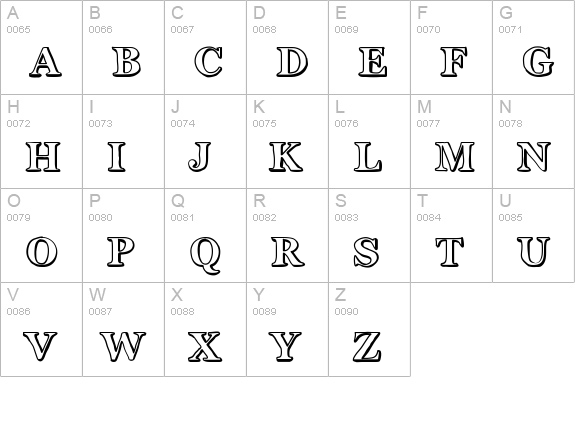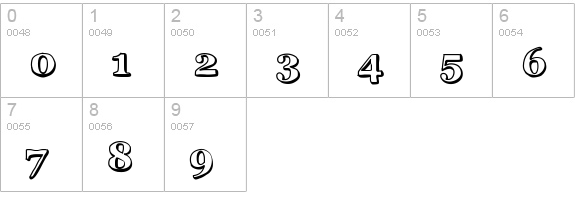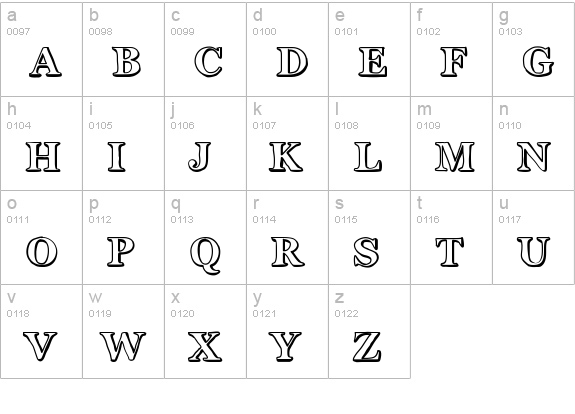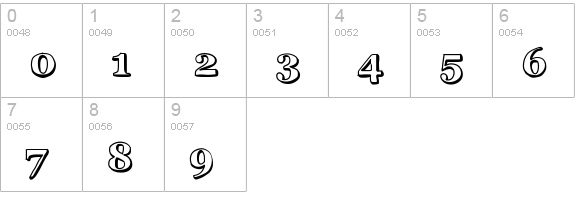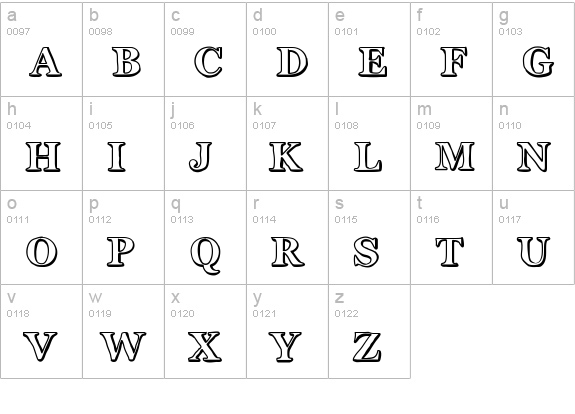
Introducing the Okay font - a captivating typeface that effortlessly combines modern elegance with a touch of playfulness. This versatile font is perfect for any project, whether it be designing eye-catching logos, creating stunning invitations, or crafting beautiful headlines. With its clean lines and sleek curves, Okay font brings a sense of sophistication to any design. Its well-balanced letterforms ensure legibility, making it an ideal choice for both print and digital mediums. Whether used in large headlines or small body text, Okay font maintains its clarity and readability. But what sets Okay font apart is its unique ability to evoke a sense of warmth and friendliness. Its subtly rounded edges and gentle curves give it a welcoming and approachable feel, making it the perfect choice for projects that require a personal touch. And the best part? Okay font is absolutely free to download at FontsMarket.com. This means that you can easily add this stunning typeface to your font collection without any cost. Now, you can bring a touch of elegance and playfulness to your designs without breaking the bank. So why wait? Embrace the versatility and charm of the Okay font and elevate your design projects to new heights. Download it for free at FontsMarket.com today and unleash your creativity in the most stylish way possible.